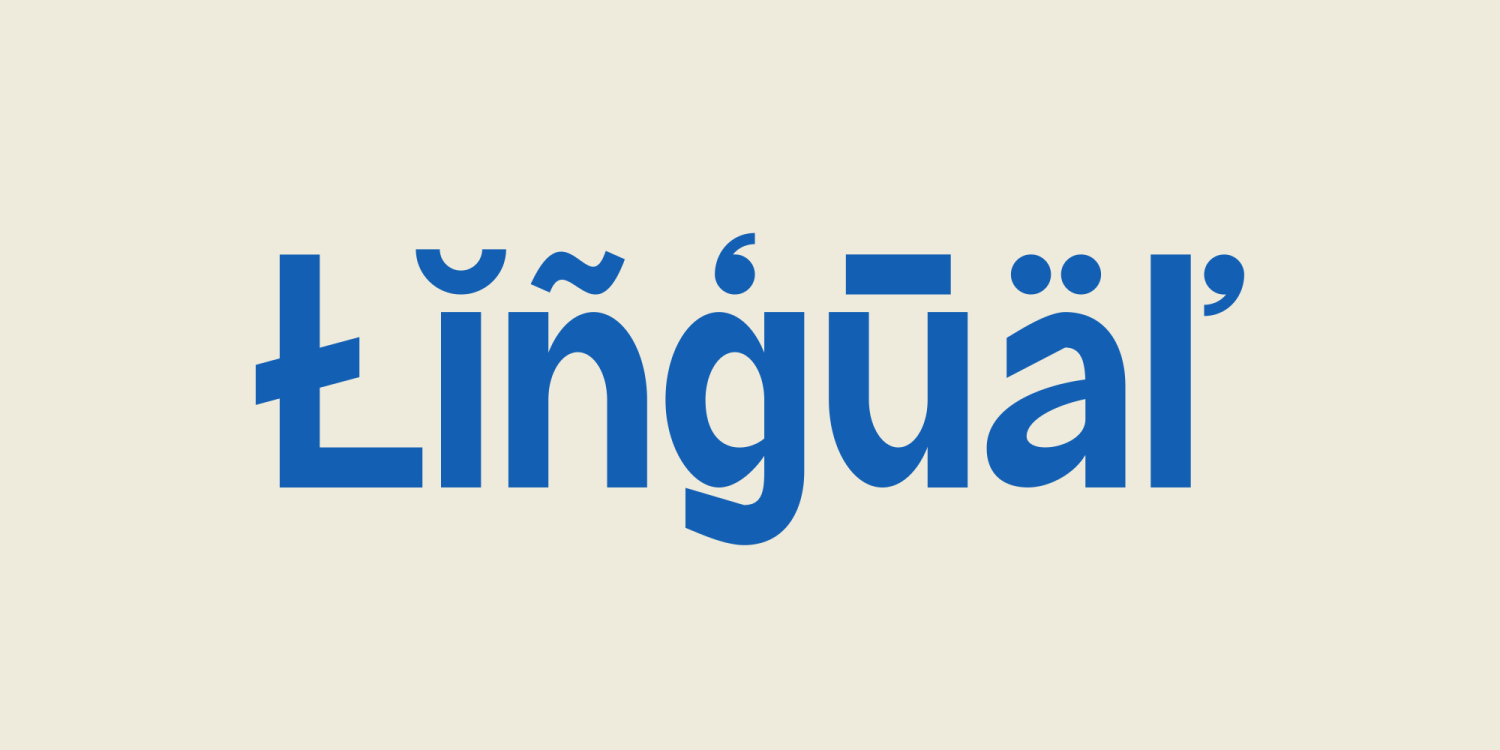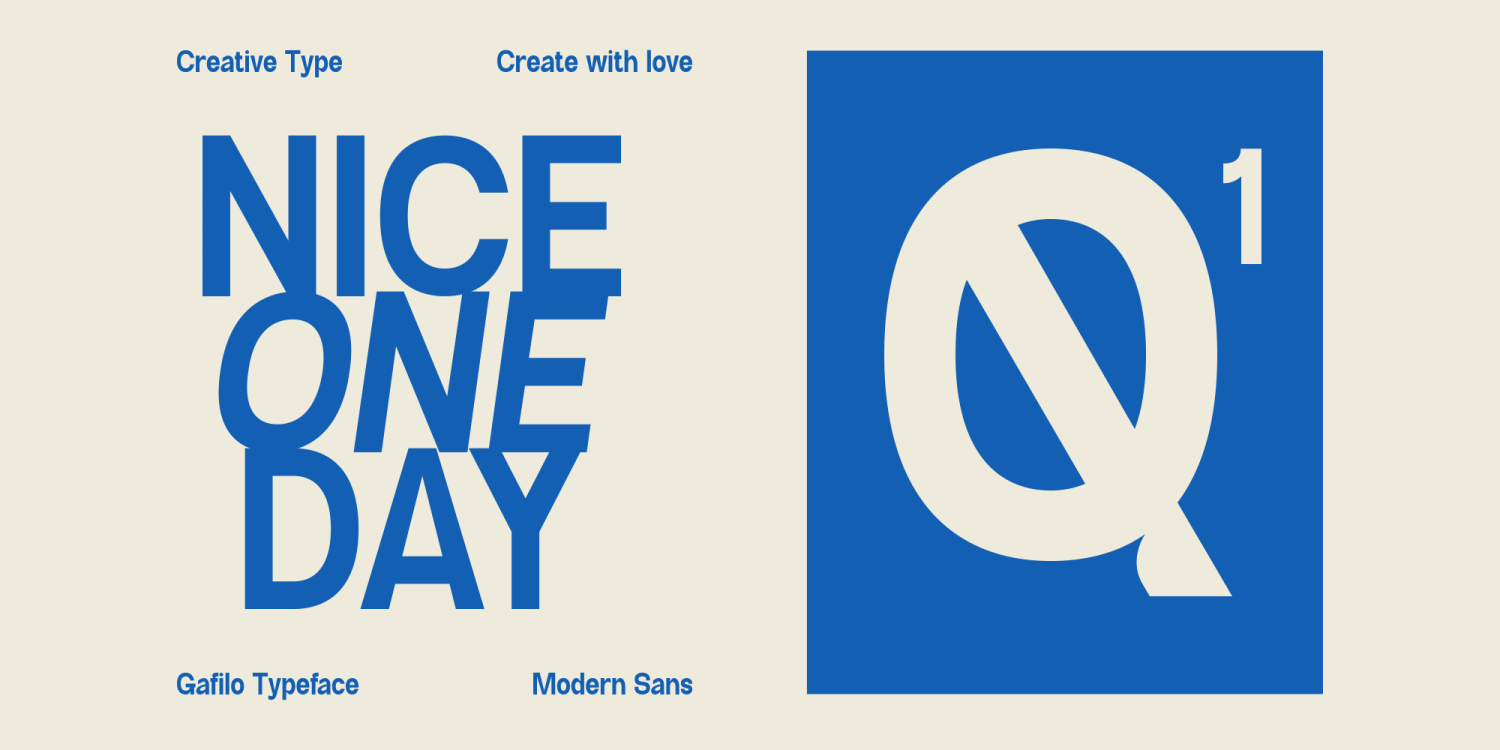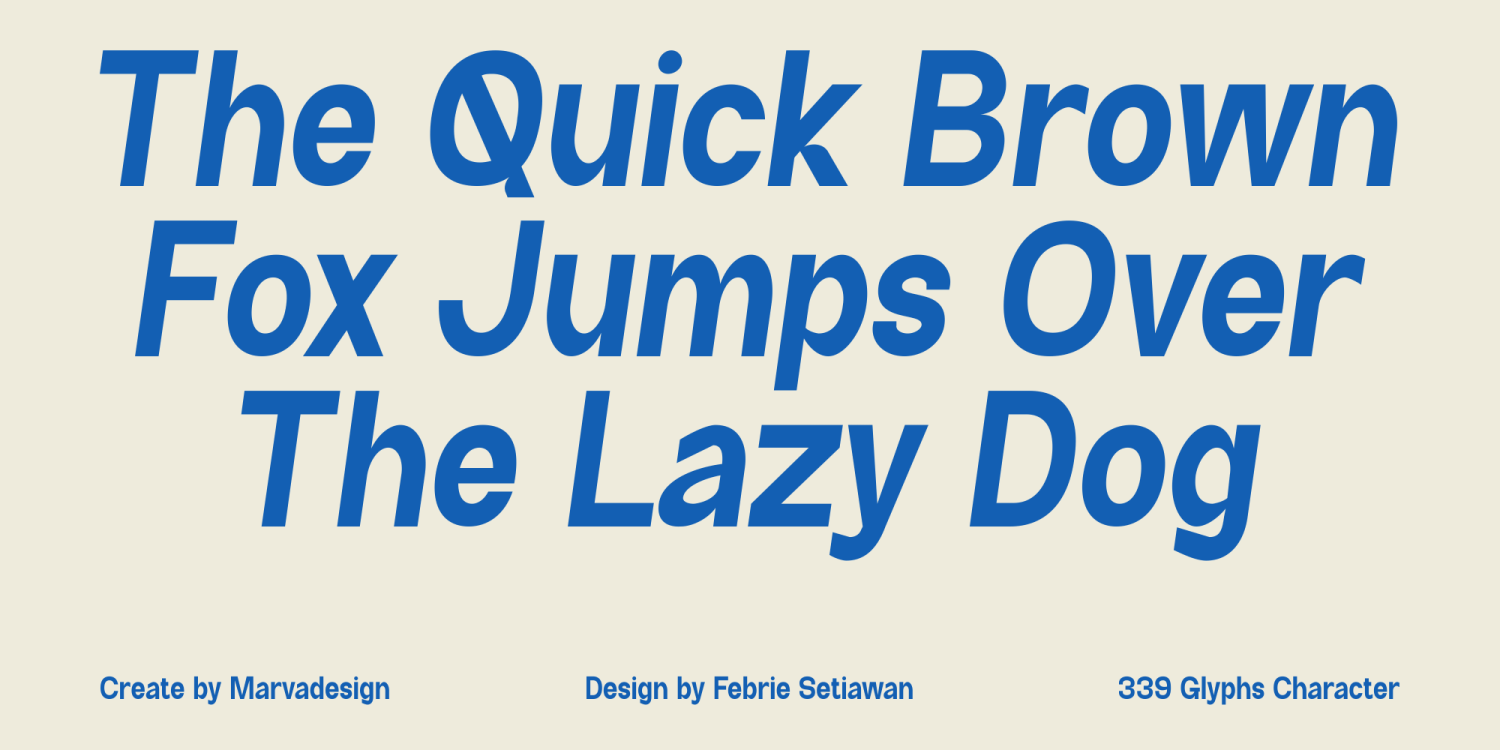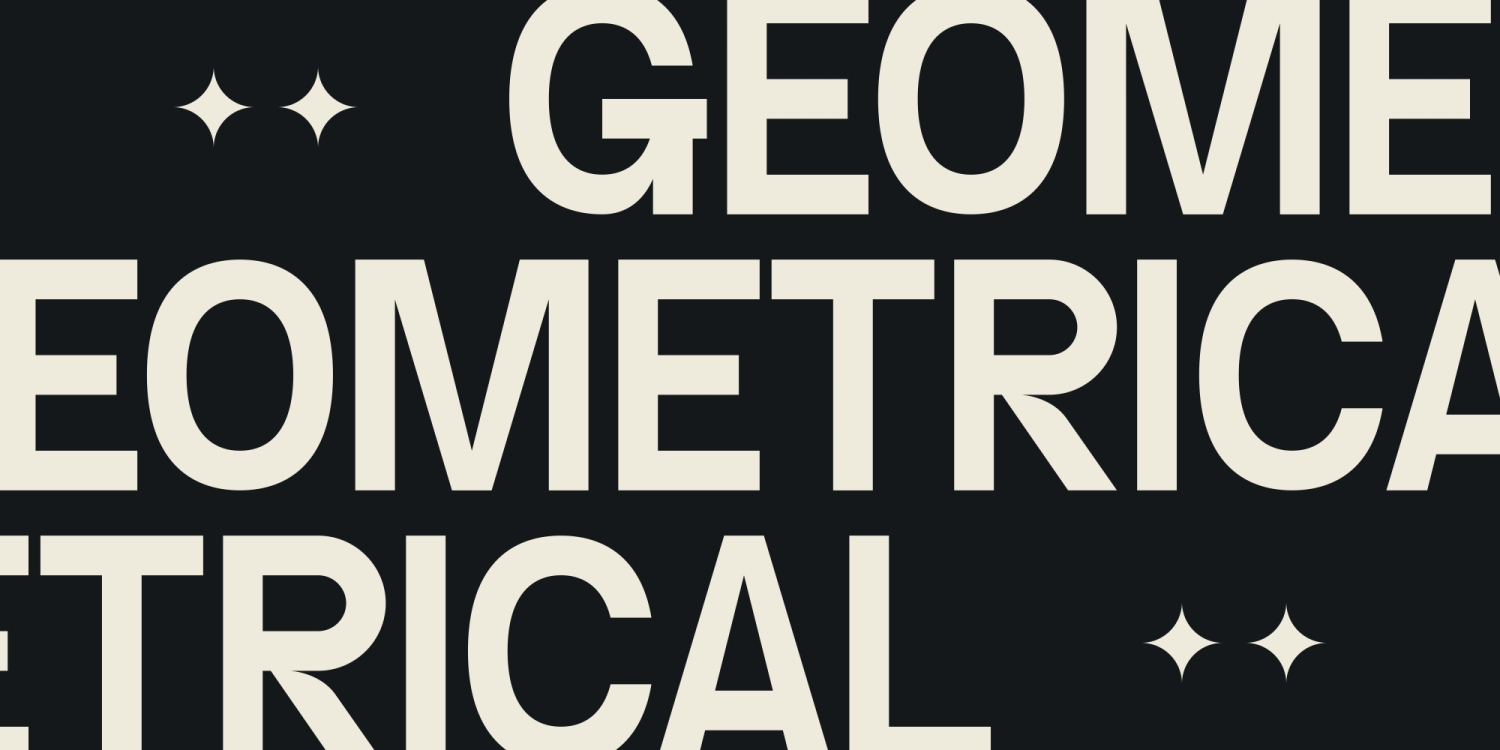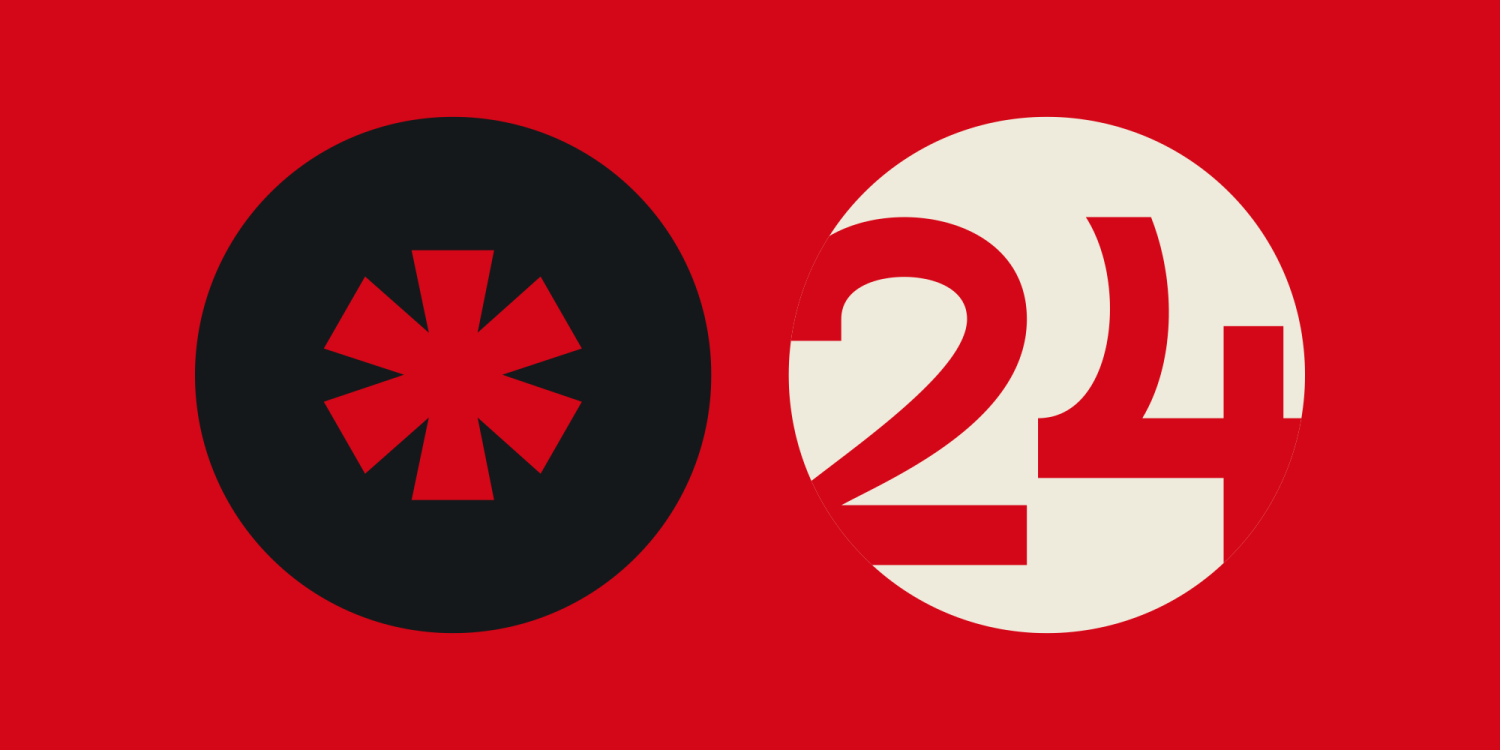
Gafilo
Font Family by Marvadesign
Introducing Gafilo is a modern sans serif typeface, offering a clean and contemporary look. It comes in two styles: regular and italic, providing versatility for various design applications. The typeface is characterized by its distinctive lowercase letters, where certain characters stand out with subtle yet noticeable variations, enhancing the font's uniqueness. Gafilo is ideal for projects requiring a modern, sleek aesthetic while maintaining readability and sophistication.